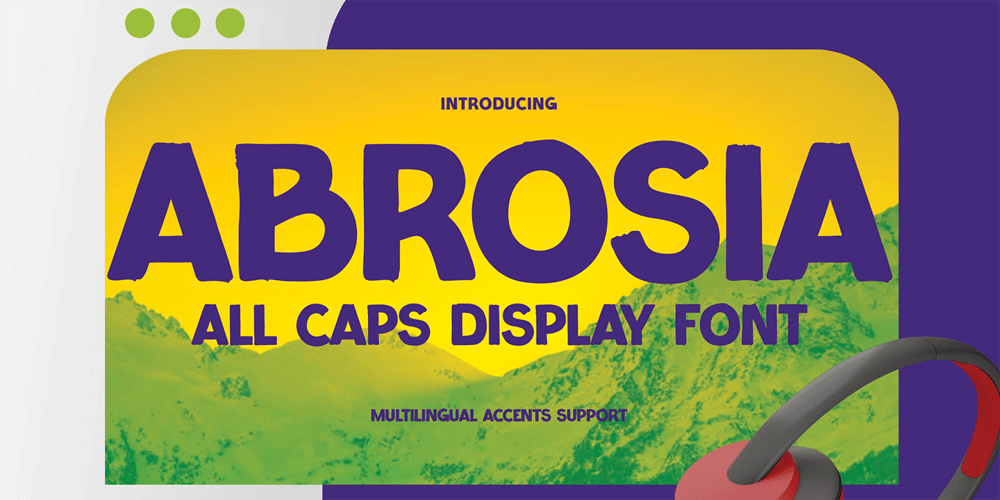
Abrosia
Abrosia font
Abrosia Font Family was designed by Abdul Malik Wisnu, Anang Fibriyanto and published by Gassstype. Abrosia contains 1 styles and family package options. Here comes a New font, Introducing Abrosia It’s All Caps Display Font is a Textured Natural Style and Authentic Classy Style, this font is great for your creative projects such as watermark on photography, and perfect for logos & branding, invitation,advertisements, special events or anything that need handwritting taste.Abrosia a natural Hand Drawn feel. This handmade font will make your design has a beautiful natural touch for each details. It is perfect for any design project as Invitation,logo, book cover, craft or any design.